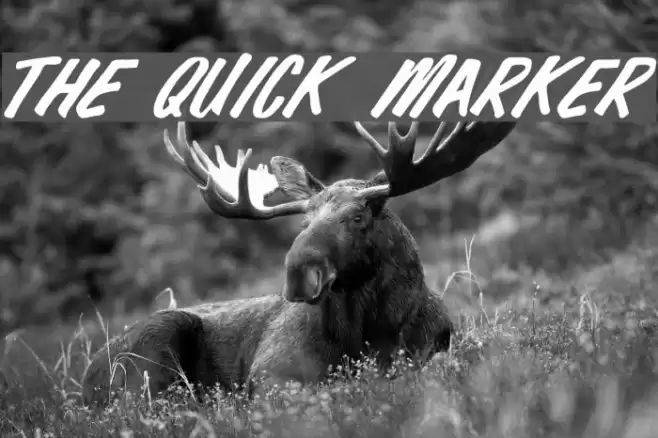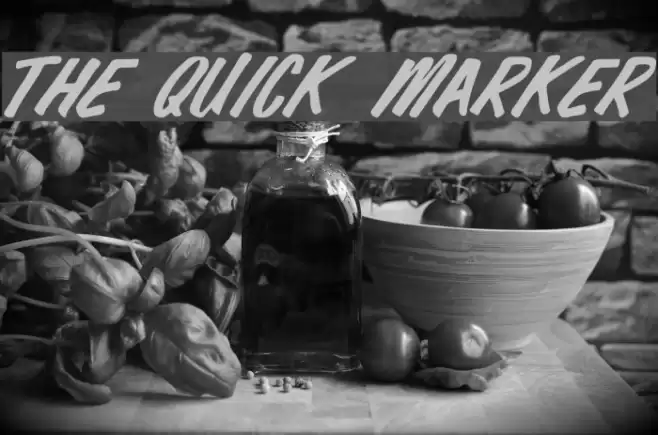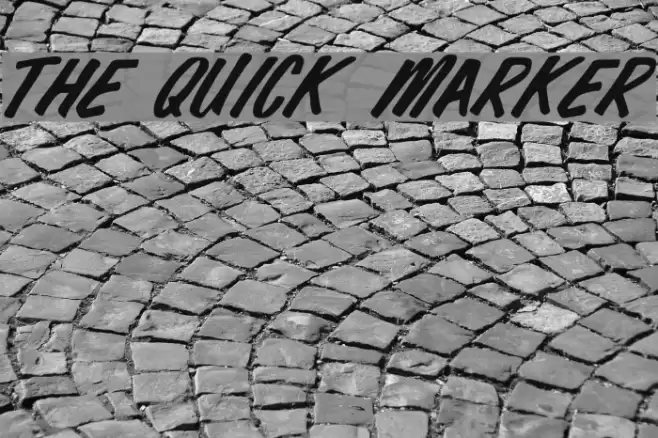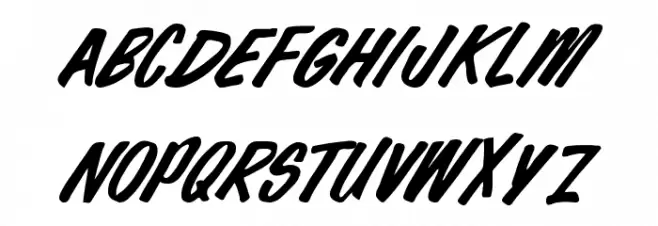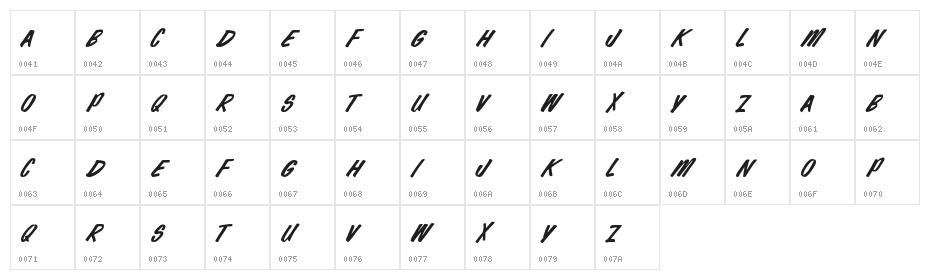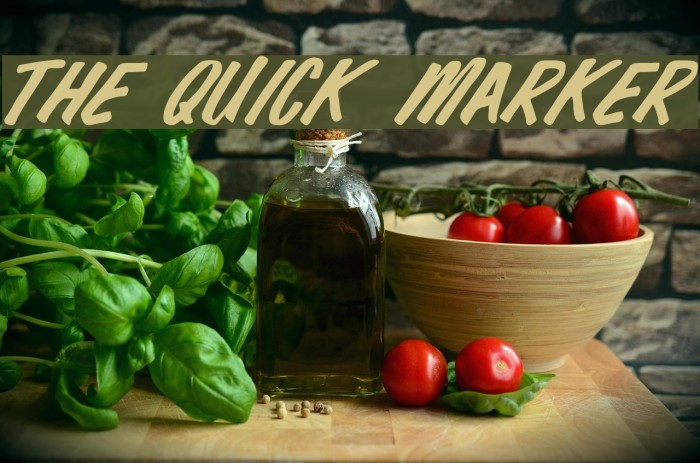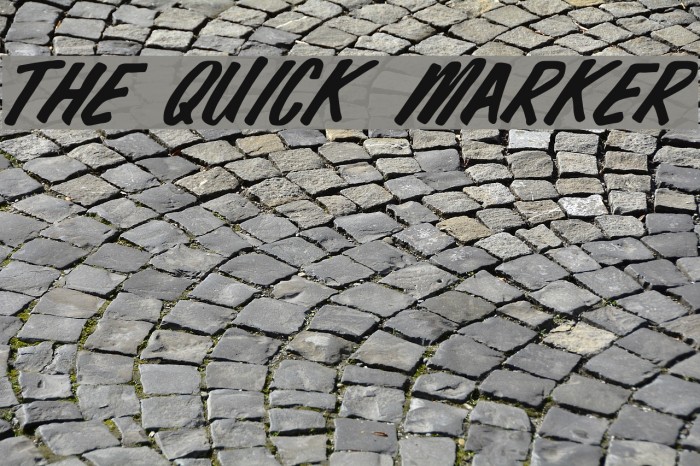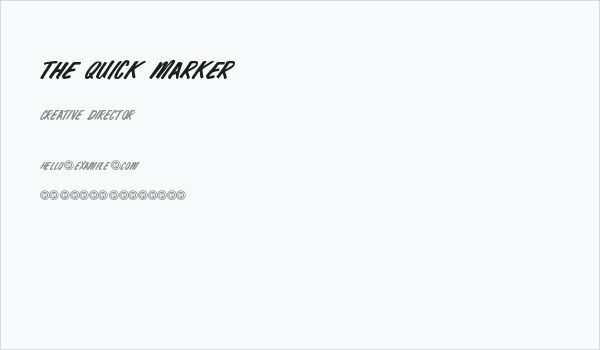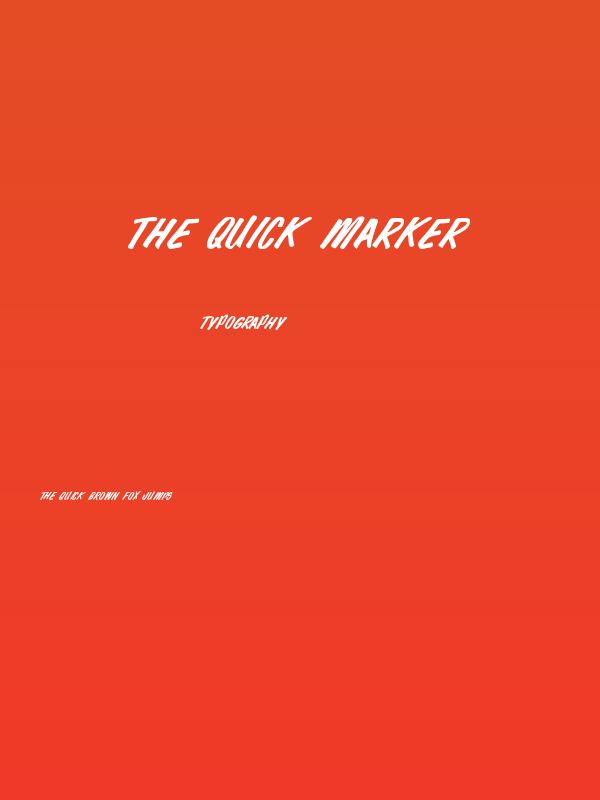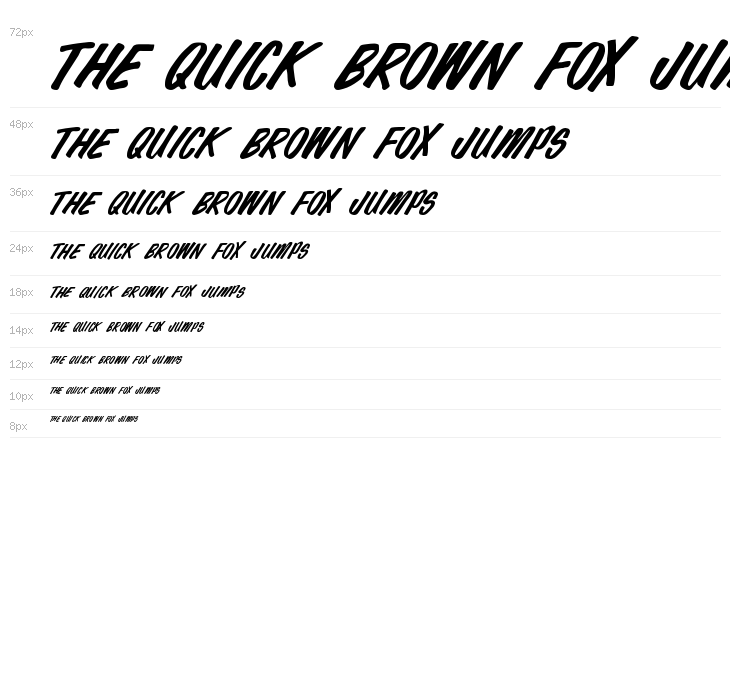
The Quick Marker Font
The Quick Marker Description
This font exudes a bold and energetic style, reminiscent of handwritten marker strokes. The letters are slightly slanted, giving a sense of motion and dynamism. Each character is crafted with thick, consistent strokes, creating a strong visual impact. The uppercase and lowercase letters maintain a cohesive look, with rounded edges and smooth curves. The numbers and special characters follow the same design principles, ensuring uniformity across all glyphs. This font is ideal for projects that require a personal touch, such as posters, invitations, or branding materials. Its boldness makes it stand out, while the handwritten style adds a touch of warmth and approachability.
A bold, handwritten-style font with dynamic, marker-like strokes from Uncategorized fonts.
- Proposed Projects: Ideal for posters, invitations, branding materials, and any project needing a personal touch.